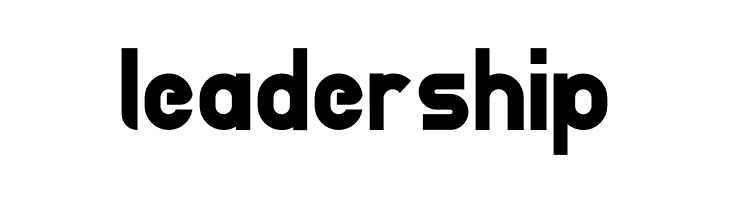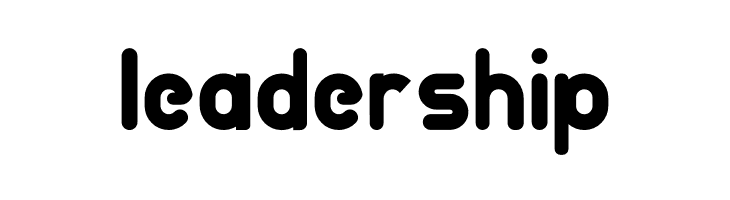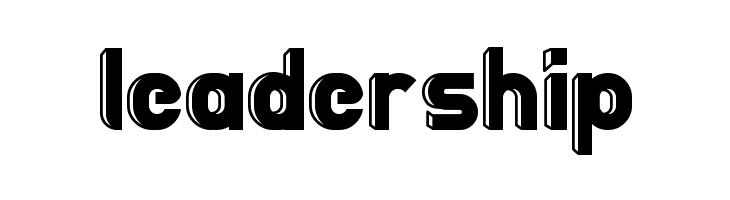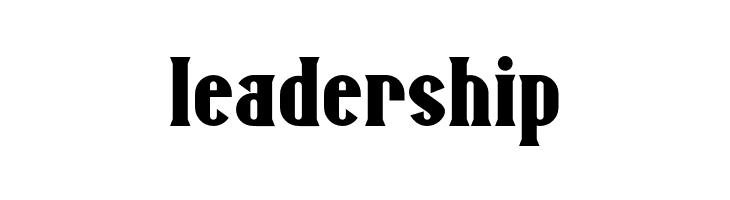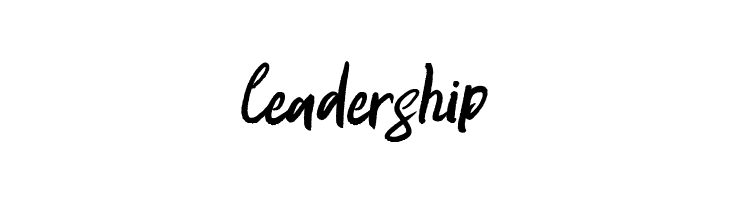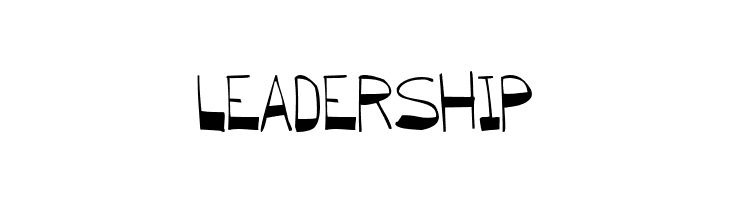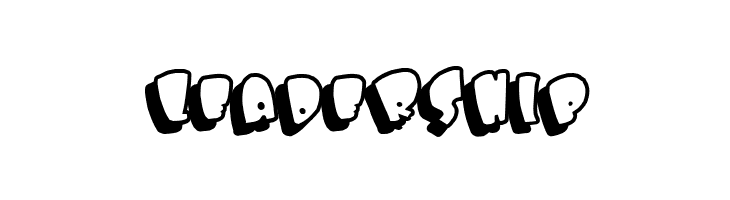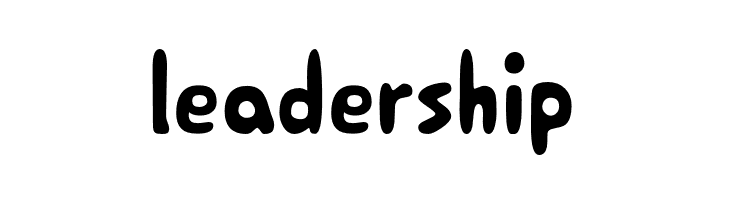
A playful, bold font with rounded strokes and a cartoonish style.
A playful, decorative font with star-shaped cutouts and bold, rounded characters.
A bold, geometric font with a modern and impactful style.
A modern, minimalist font with thin, geometric strokes.
A modern, bold, geometric sans-serif font with a clean and rounded design.
A playful, hand-drawn font with elongated, outlined characters.
A graceful, cursive script font with fluid, connected letterforms.
A bold, rounded, and playful font with a hand-drawn look.
A bold, handwritten-style font with dynamic and energetic strokes.
A playful, handwritten-style font with a bold marker look.
A playful, rounded font with consistent stroke thickness and a casual style.
A bold, pixelated font with a retro, digital style.
A bold, rounded font with a playful and dynamic style.
A modern, hollow font with rounded, playful outlines.
A bold, hollow font with a modern slant and smooth curves.
A bold, dynamic font with rounded strokes and a slight slant.
A bold, rounded, and slightly slanted font with a playful and modern aesthetic.
Bold, uppercase sans-serif letters within circular shapes for a vintage button badge look.
A bold, geometric sans-serif font with a modern and clean design.
A bold, geometric font with sharp angles and a futuristic look.
A bold, modern sans-serif font with clean lines and excellent readability.
A lively, cursive script font with interconnected characters and dynamic strokes.
A playful, hand-drawn font with irregular strokes and a lively appearance.
A bold, angular font with a modern twist on traditional Japanese aesthetics.
A bold, angular font with a geometric and dynamic style.
A playful, narrow font with consistent strokes and charming details.
A bold, geometric typeface with strong, uniform strokes and high legibility.
A bold, modern typeface with tall, narrow letterforms and strong vertical emphasis.
A bold, geometric sans-serif font ideal for impactful headlines.
A tall, narrow, and modern font with clean lines and a sleek appearance.